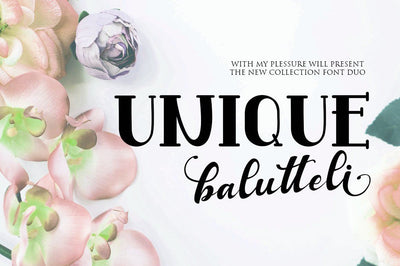
Unique Balutteli Font Duo
I will introducing my new font collection with the name 'UNIQUE BALUTTELI'
of these fonts has unique characteristics. You will see perfect when these fonts are combined.
Have a scroll through the previews to see some of what you can do with this elegant font duo - the possibiilities are truly endless. Feel free to share your own creations as inspiration!